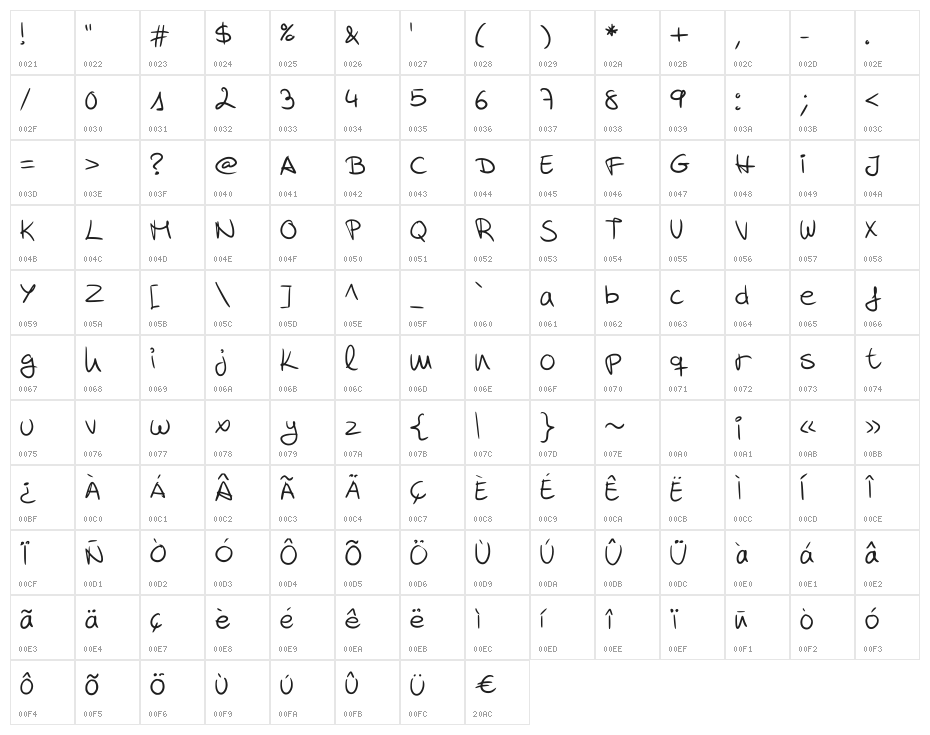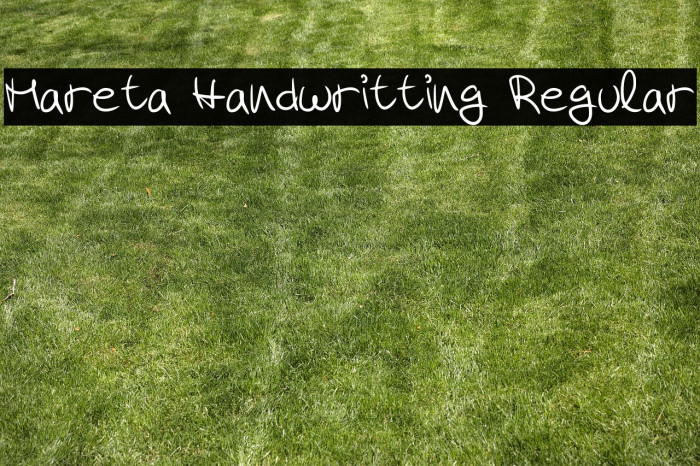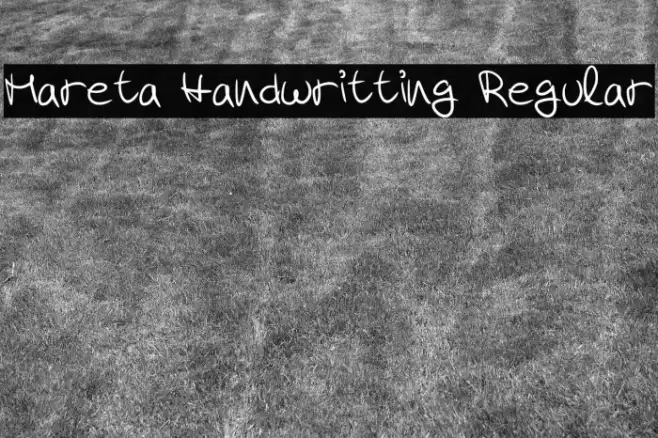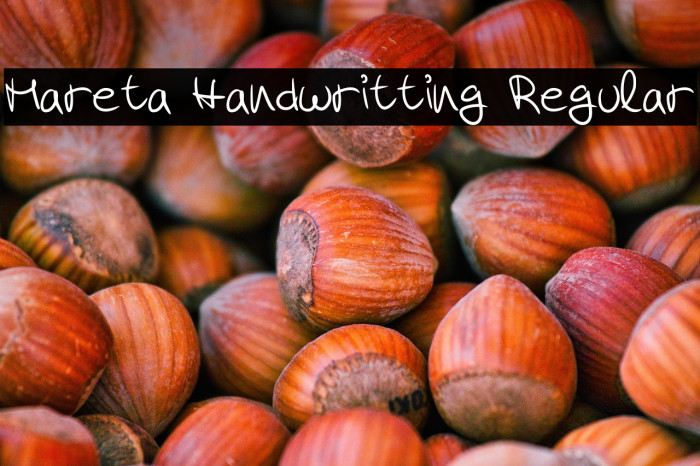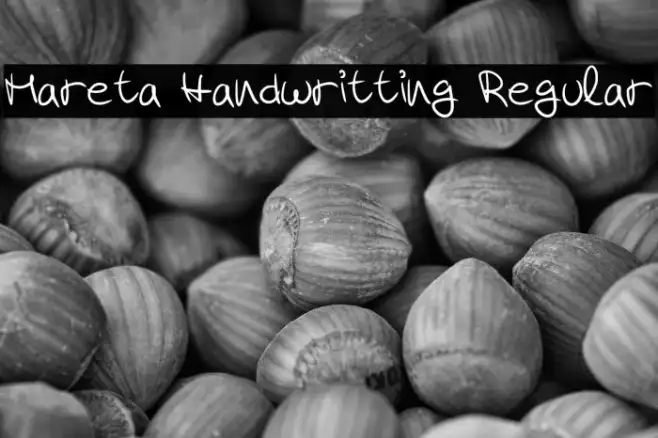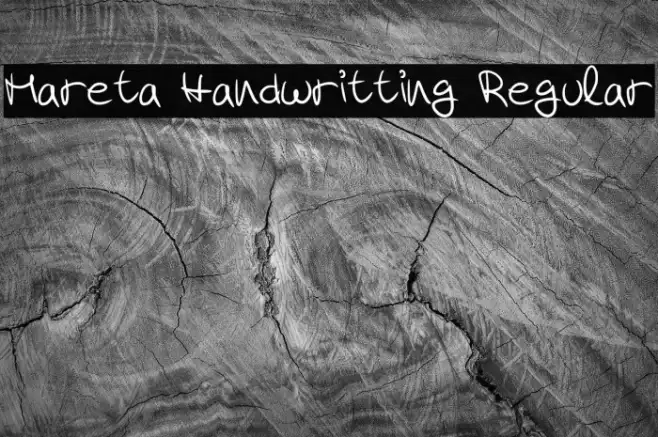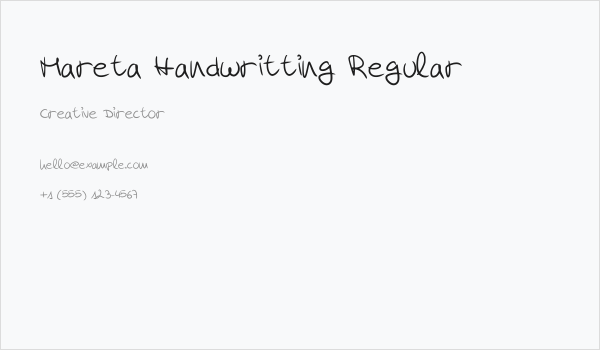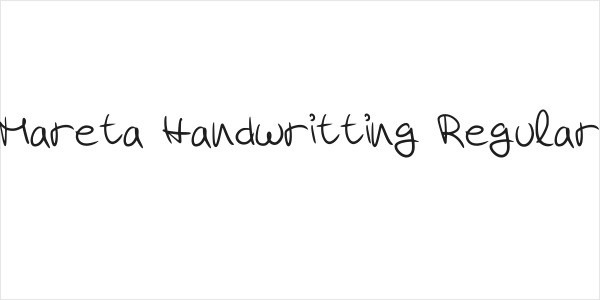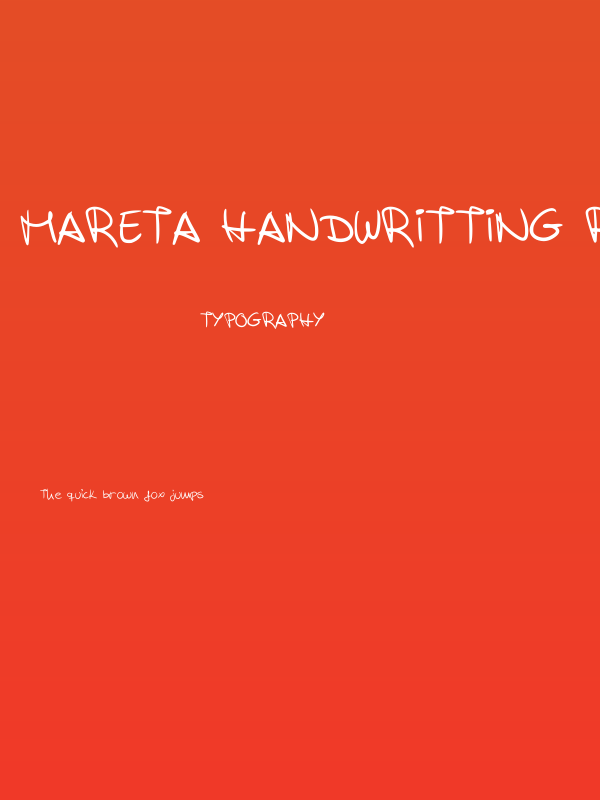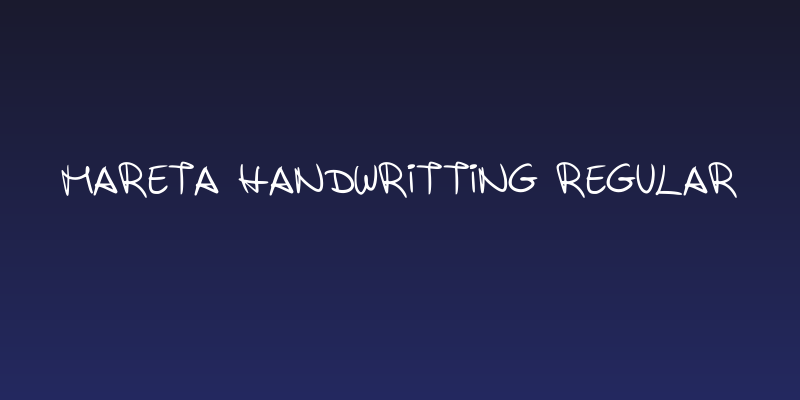
Mareta Handwritting Regular Font
Mareta Handwritting Regular Description
This font exudes a playful and casual handwritten style, characterized by its fluid and organic strokes. The letters are slightly slanted, giving a dynamic and lively appearance. The uppercase and lowercase letters maintain a consistent style, with rounded edges and varying stroke widths that mimic natural handwriting. The numerals and special characters are crafted with the same attention to detail, ensuring uniformity across the font. Its informal and approachable aesthetic makes it ideal for projects that require a personal touch, such as invitations, greeting cards, or creative branding materials.
| Use Case | Headlines, Personal projects, Creative branding |
| Proposed Projects | Ideal for invitations, greeting cards, personal branding, and creative projects requiring a personal touch. |